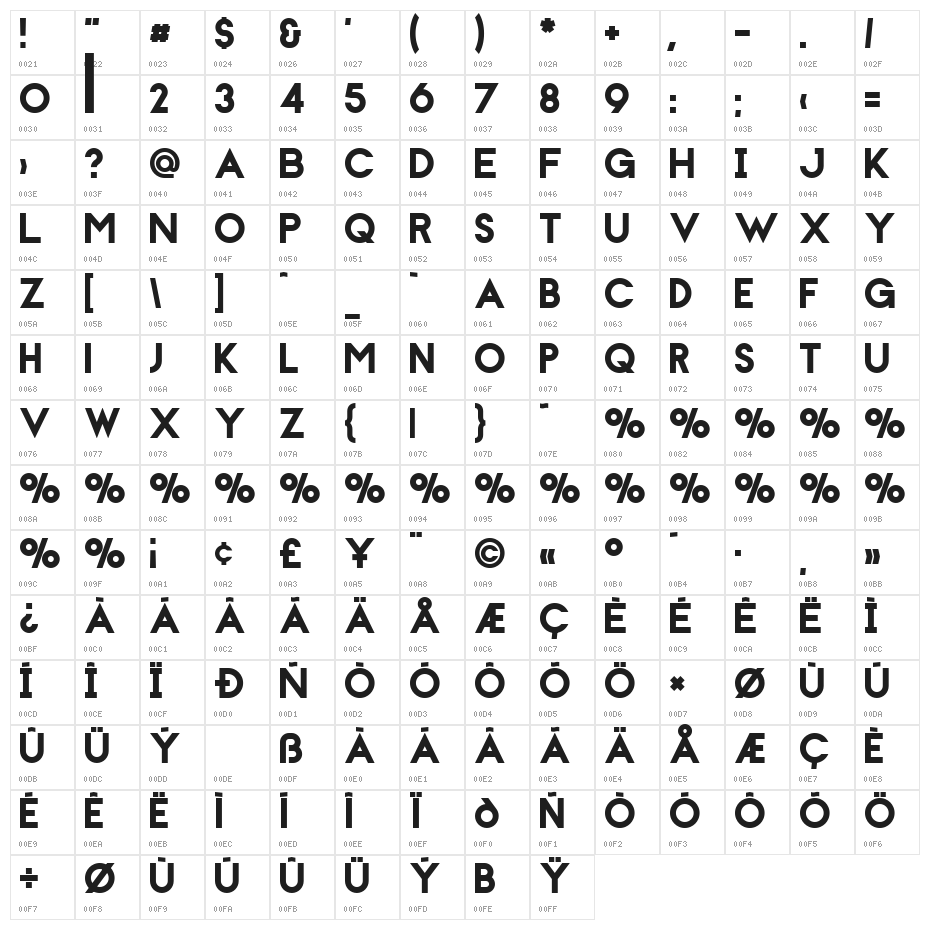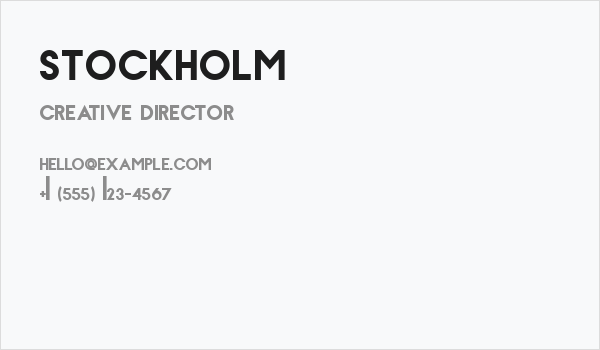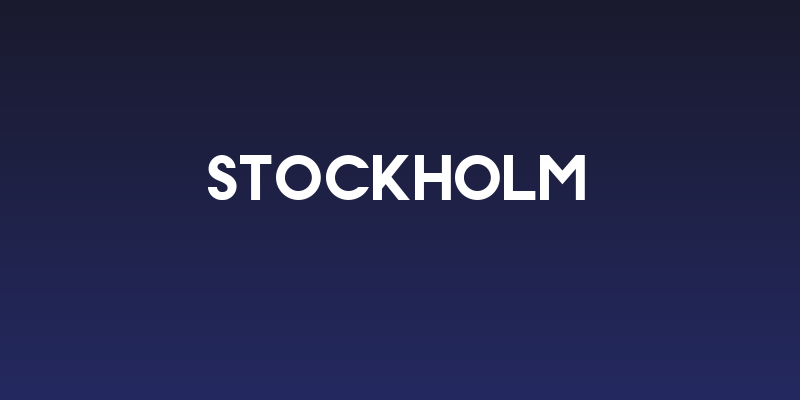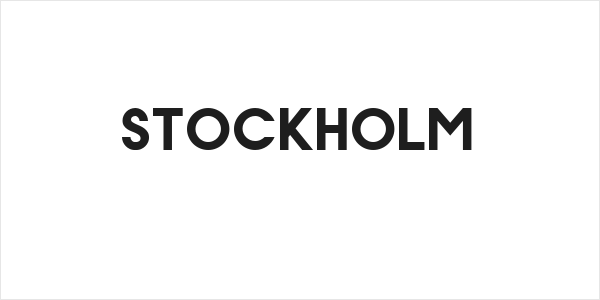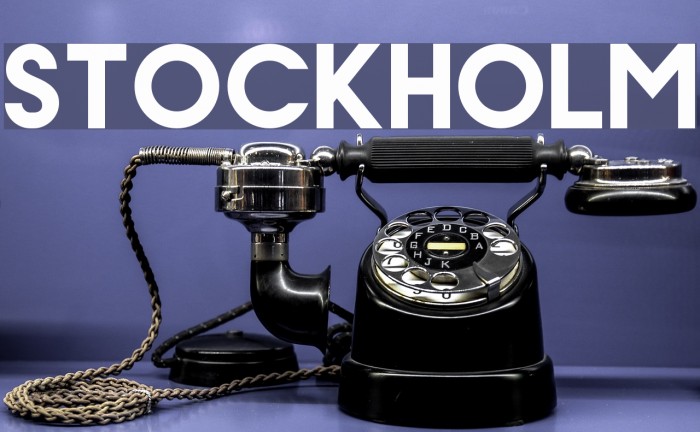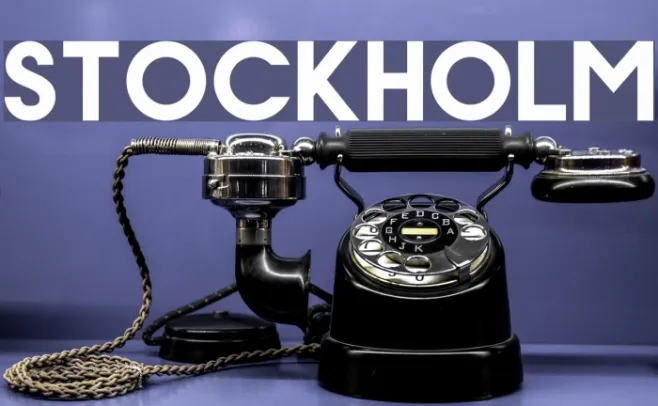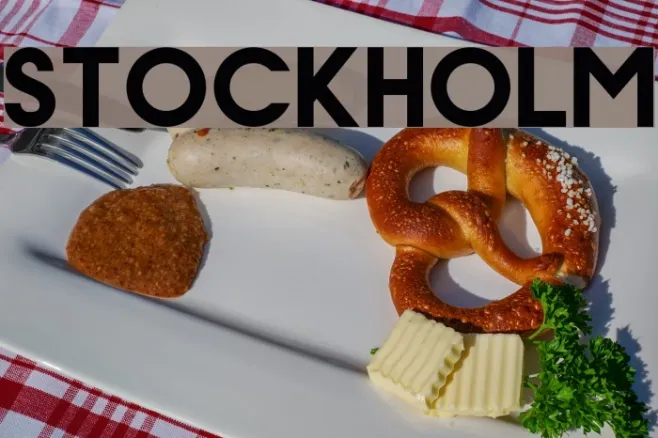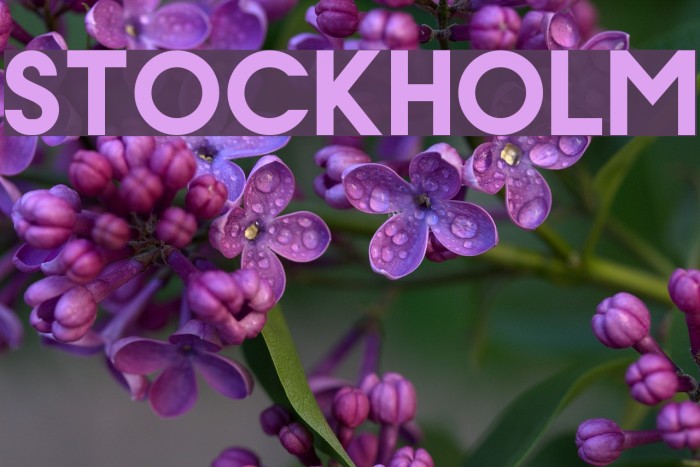
Stockholm Font
Stockholm Description
This font features bold, geometric letterforms with a strong presence, characterized by clean lines and a modern aesthetic. The uppercase and lowercase letters maintain a consistent weight, contributing to a uniform appearance. The numbers and special characters are designed with the same boldness, ensuring readability and impact. The overall design is minimalistic yet striking, making it suitable for various applications where clarity and emphasis are desired.
| Proposed Projects | Ideal for branding, headlines, posters, and advertising where a strong visual impact is needed. |